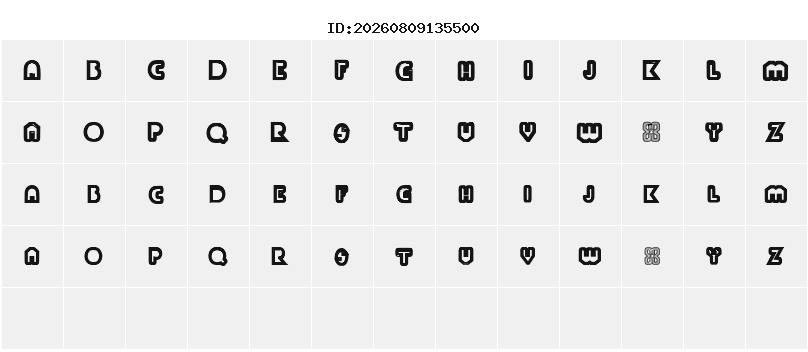
• Font Name: PaulKleinTwo
• Manufacturer: Iza W, Paulo W, Intellecta design
About PaulKleinTwo.ttf
PaulKleinTwo.ttf is a modern, elegant sans-serif font designed for ultimate readability and visual harmony. Perfect for branding, headlines, web design, and print materials.